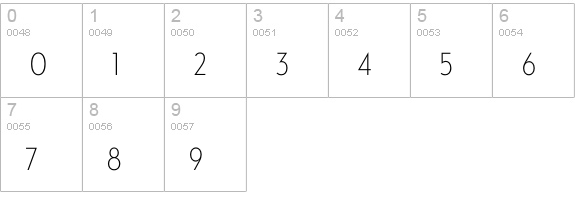
Neutraface Condensed Light Font Details
Neutraface Condensed Light is a refined, elegant, condensed-width variant in the Neutraface typeface family \xE2\x80\x94 well suited to elegant body text, refined sub-headings, and luxury branding.